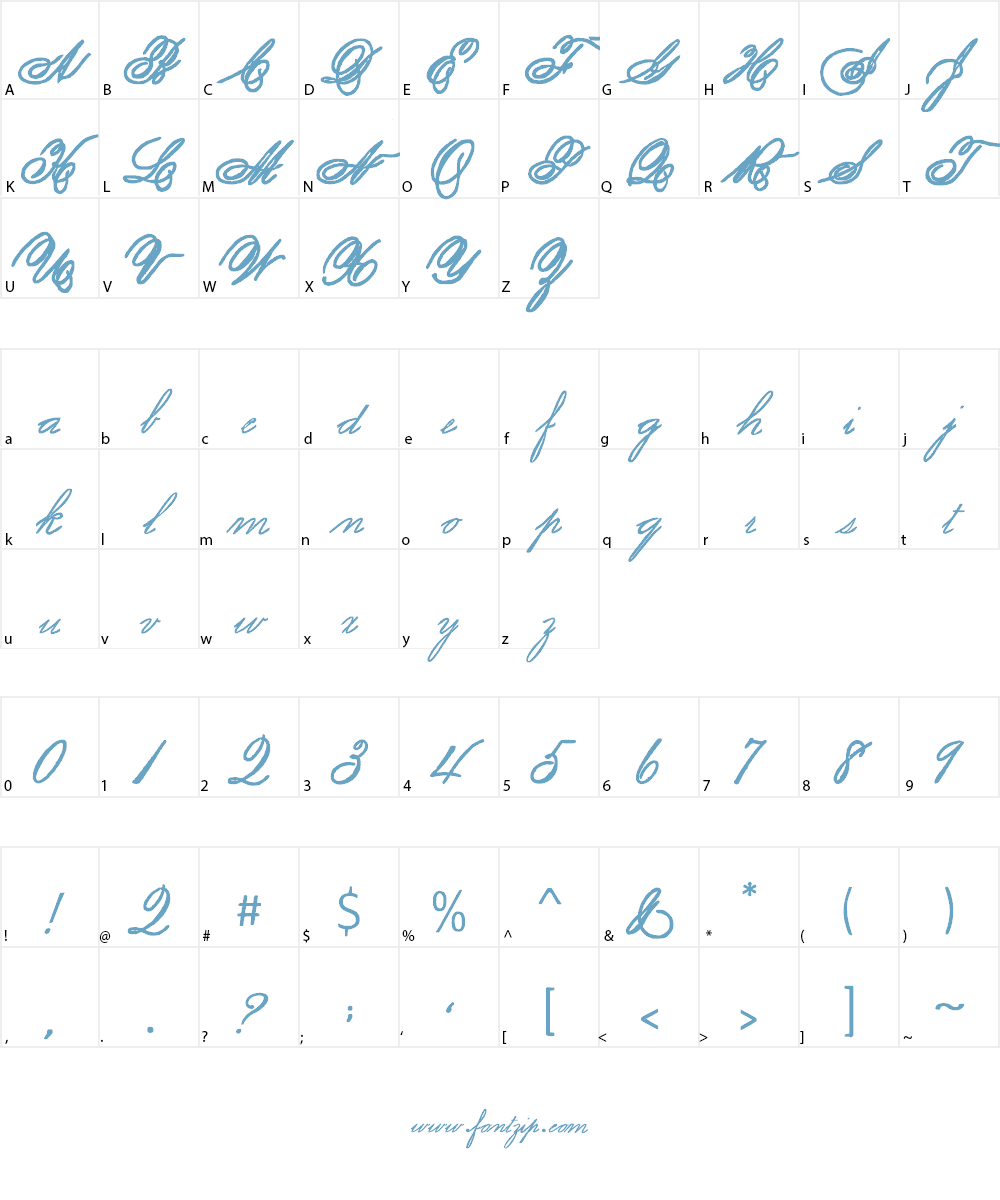
This is created from Spencerian Lady's handwriting guides in style in the late 1800s through early 1900's. It features many long curls and swirls that were commonly used by ladies of this time period.